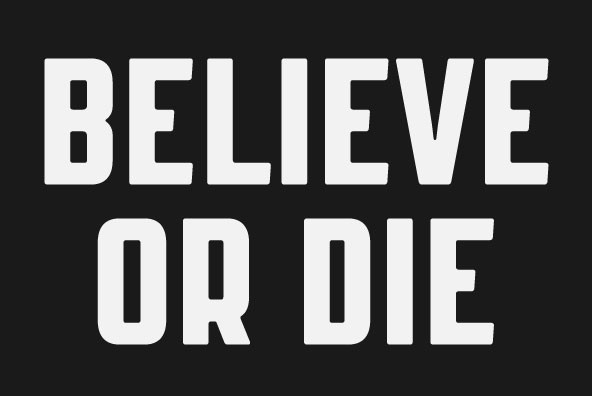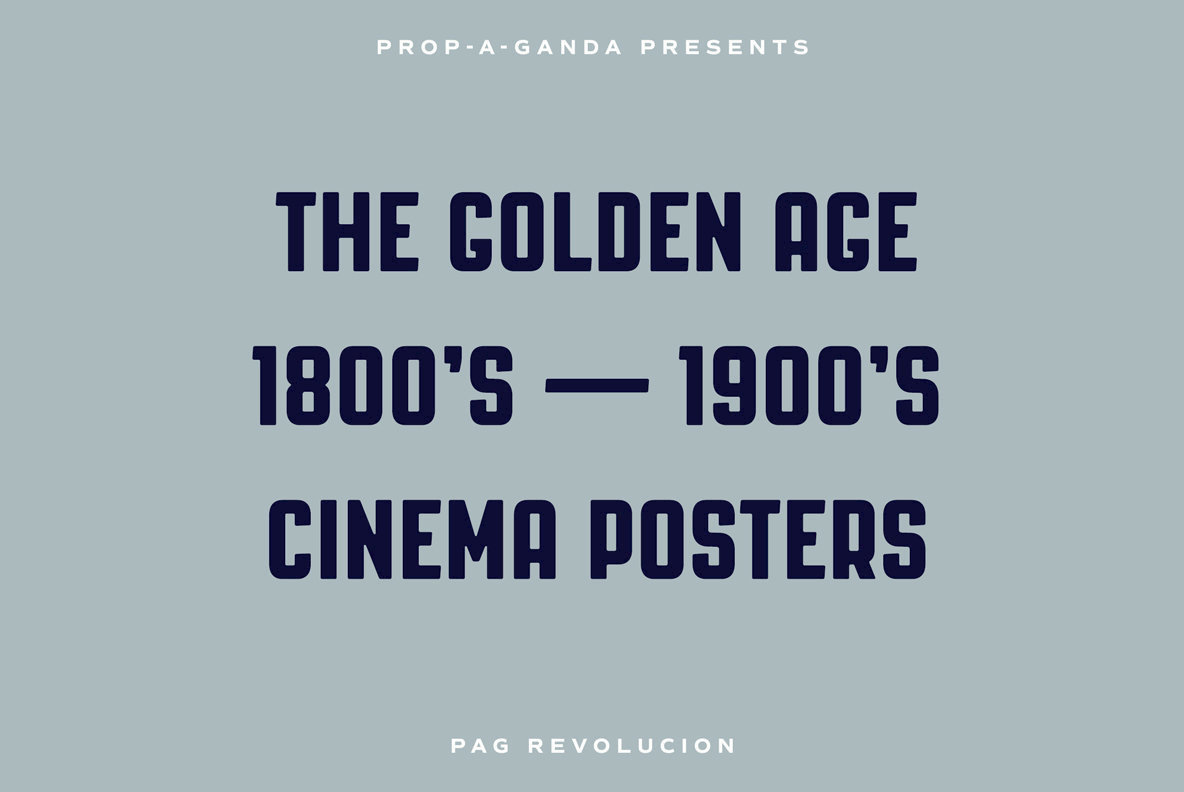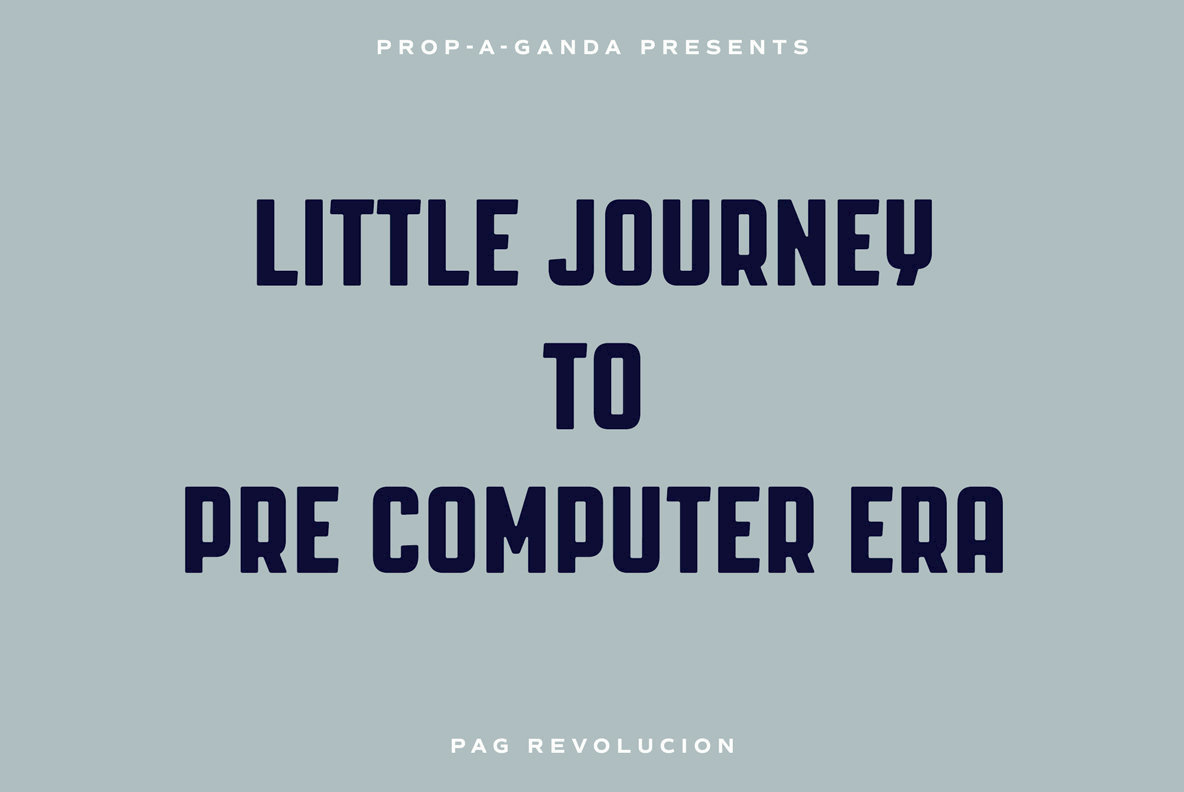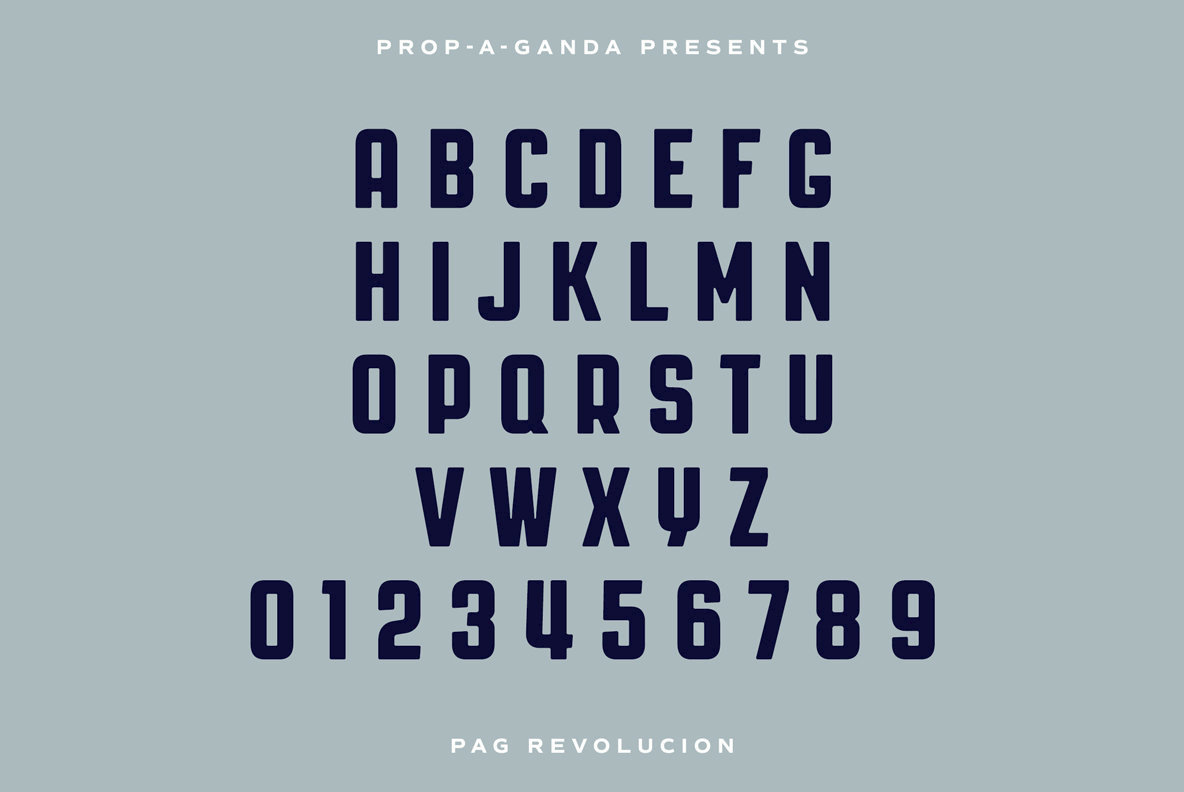
PAG Revolucion
Foundry: Ryoichi Tsunekawa
Inspired by and based on retro propaganda posters, movie posters, shopfront lettering & advertisements in the early 20th century.